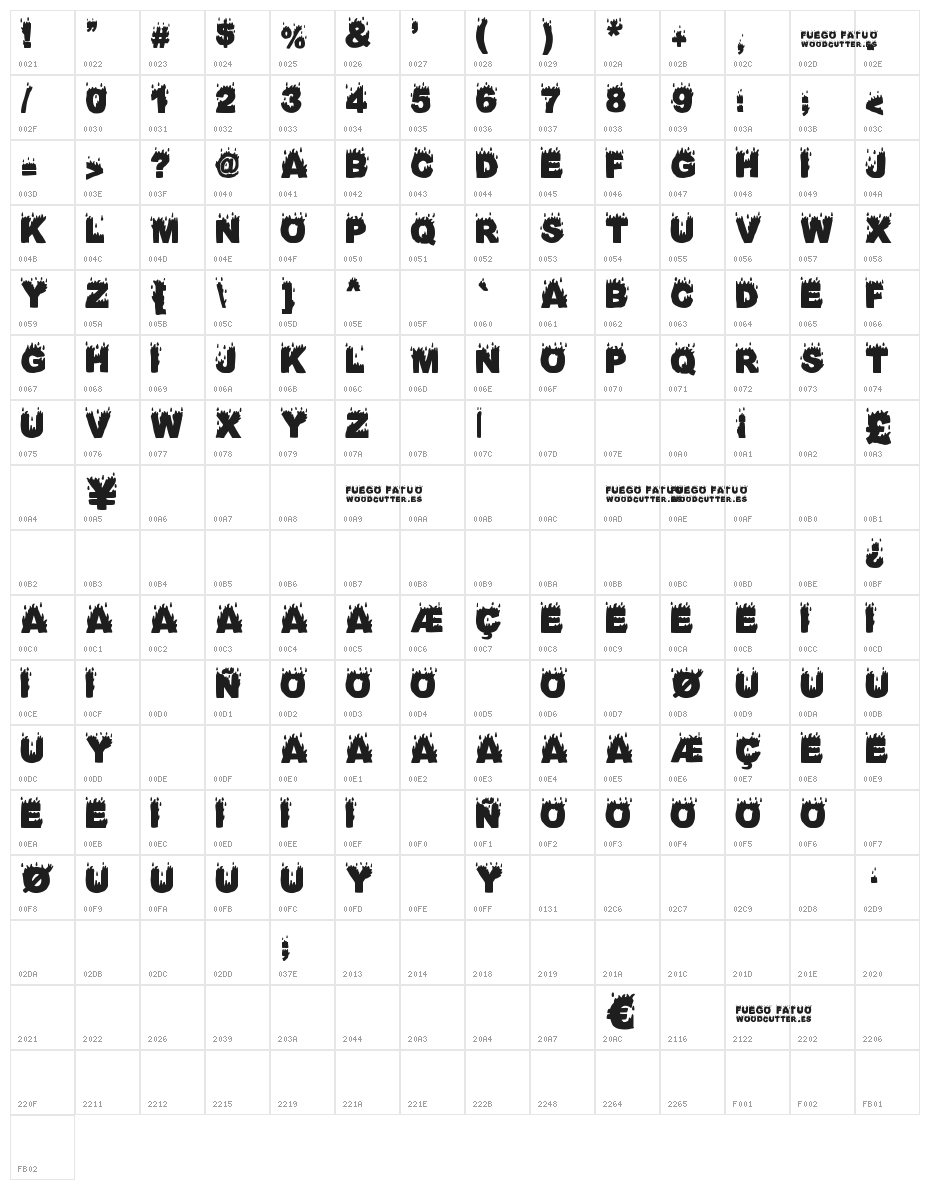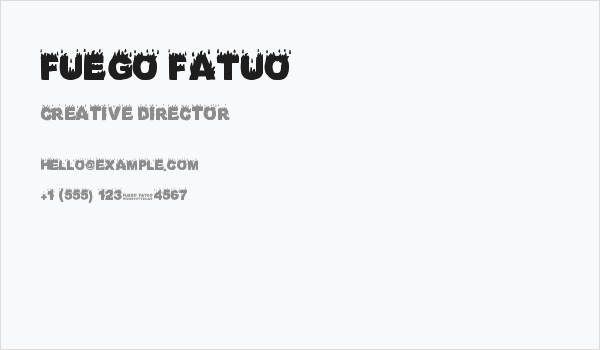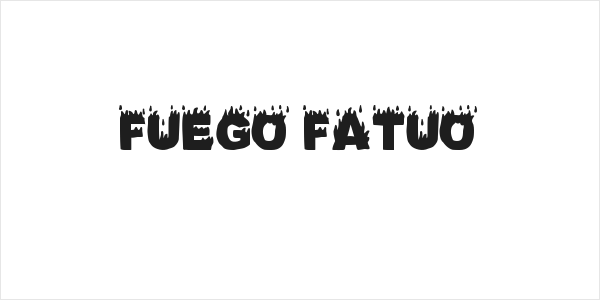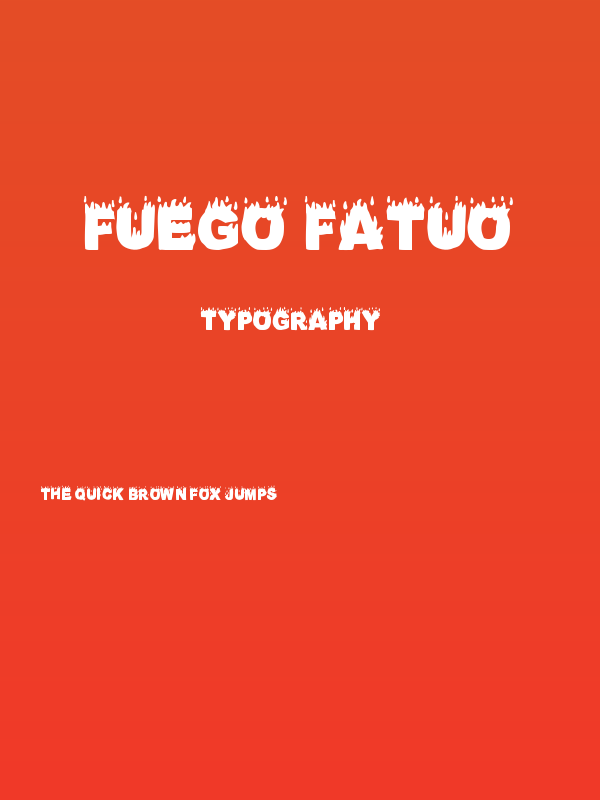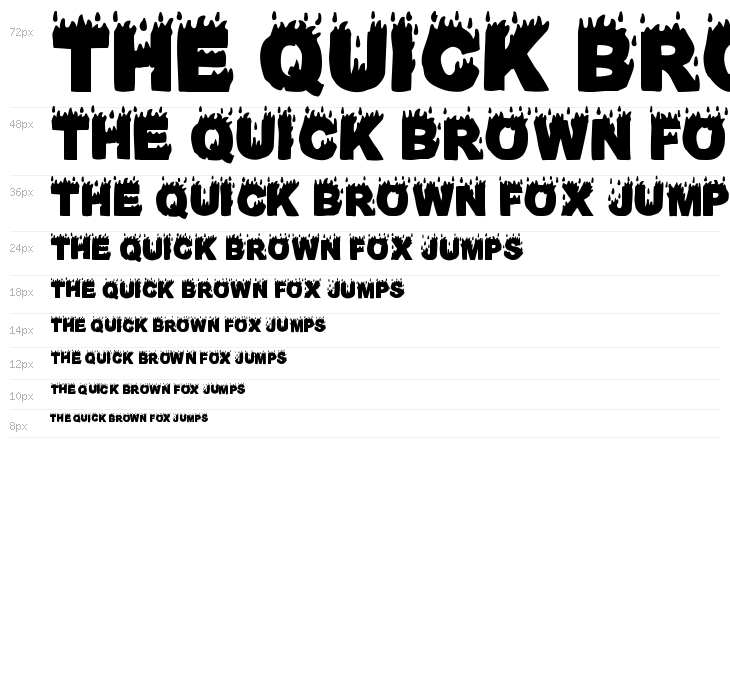
Fuego Fatuo Font
Fuego Fatuo Description
This font features a bold, dramatic style with a unique flame-like effect at the top of each character, creating a sense of movement and intensity. The characters are thick and robust, making them highly visible and impactful. This design is reminiscent of fire or burning elements, adding a dynamic and energetic feel to any text. The uppercase and lowercase letters maintain a consistent style, ensuring readability while still offering a distinct visual flair. The numbers and special characters are equally bold, maintaining the fiery theme throughout the set.
Proposed ProjectsIdeal for Halloween-themed designs, fire-related branding, event posters, or any project requiring a bold, eye-catching typeface.